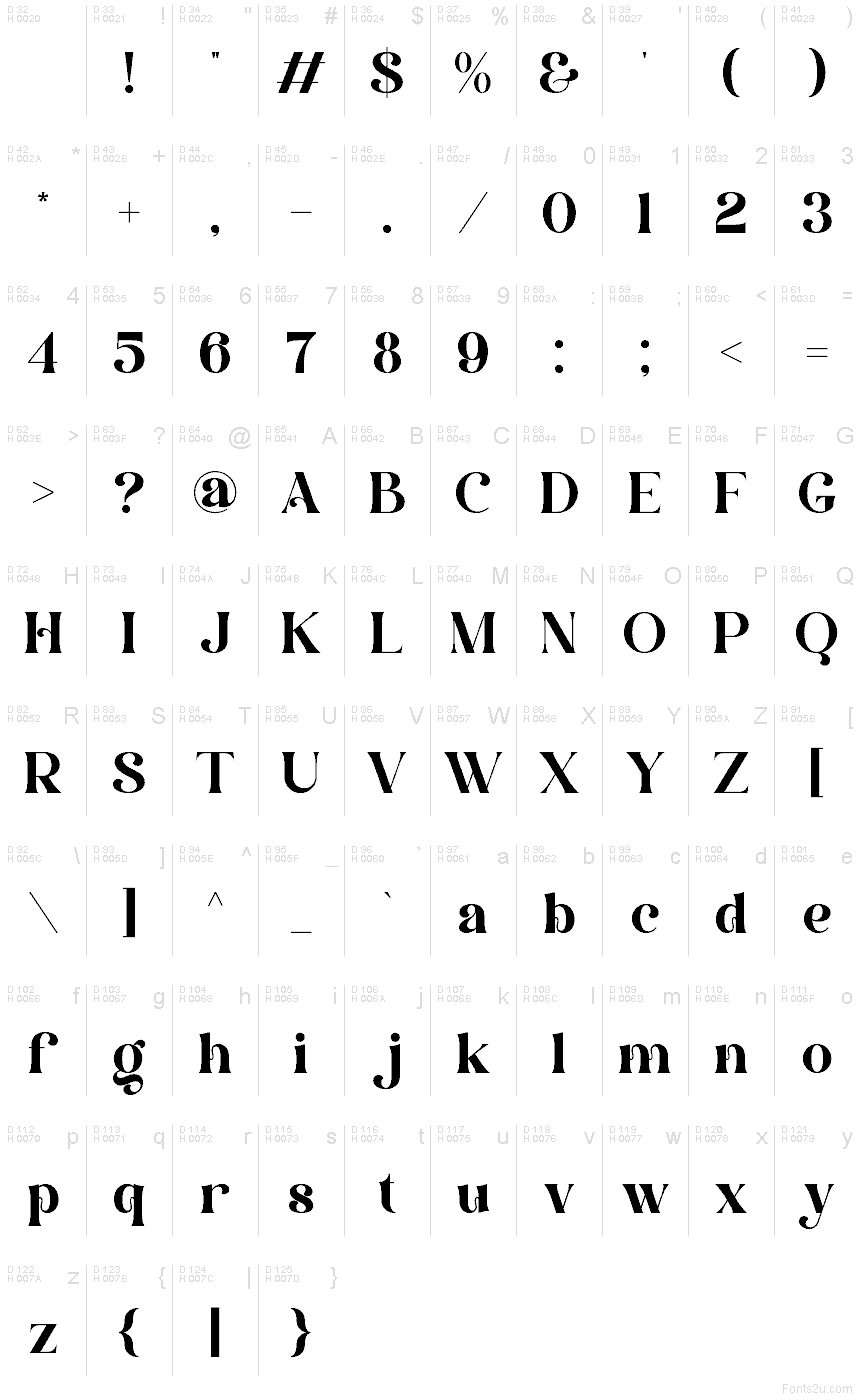
Safena Regular
Safena font by Ermedia Studio is a free vintage serif display font. Its personality comes from voluptuous, high-contrast strokes that carve petal-like hollows into each letter, creating a rhythmic play of shadow and light. The result feels lush and tactile—inky, sculpted curves with crisp cutaways that catch the eye without shouting.
Using Safena, headlines take on a boutique elegance that shines on perfume packaging, wine labels, editorial mastheads, café menus, event posters, and social media quotes. The spacing feels steady and confident, so short words land with weight and grace. Pair this free font with a light grotesque sans for supporting text, and add a touch of letterspacing at larger sizes to let those dramatic shapes breathe.